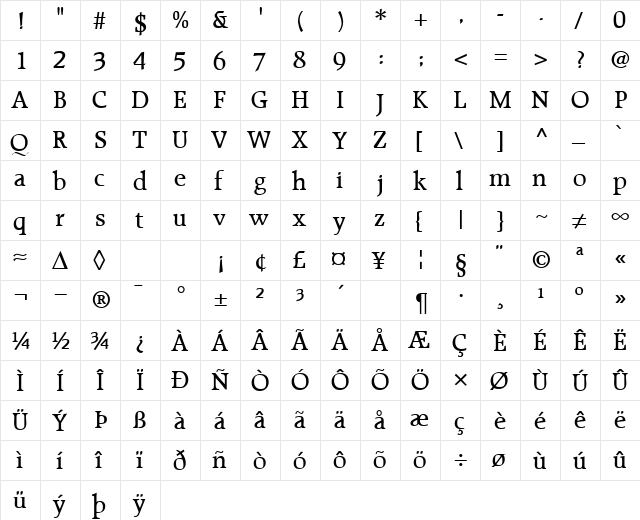
RaleighTwoMedium Regular Font Preview
RaleighTwoMedium Regular
RaleighTwoMedium Regular Font Details
Design Context for RaleighTwoMedium Typeface
RaleighTwoMedium is a composed and adaptable typeface that performs quietly and consistently across a wide range of design contexts.